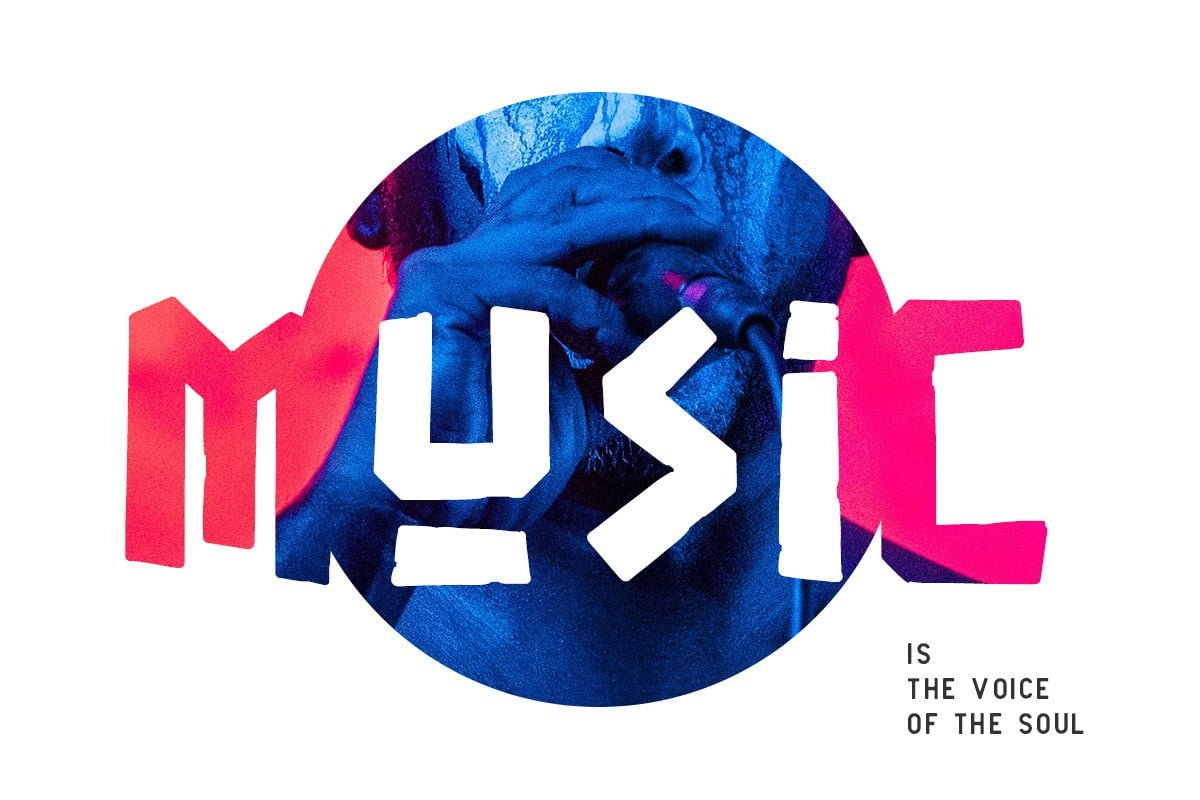
Franky is a fun and modern font with smooth and rough edges to simulate vintage design. Perfect for many different projects like quotes, blog header, poster, wedding, branding, logo, fashion clothing, apparel lettering and stationery.
• 2 Styles (Smooth and Rough edges)
Franky Playful Font